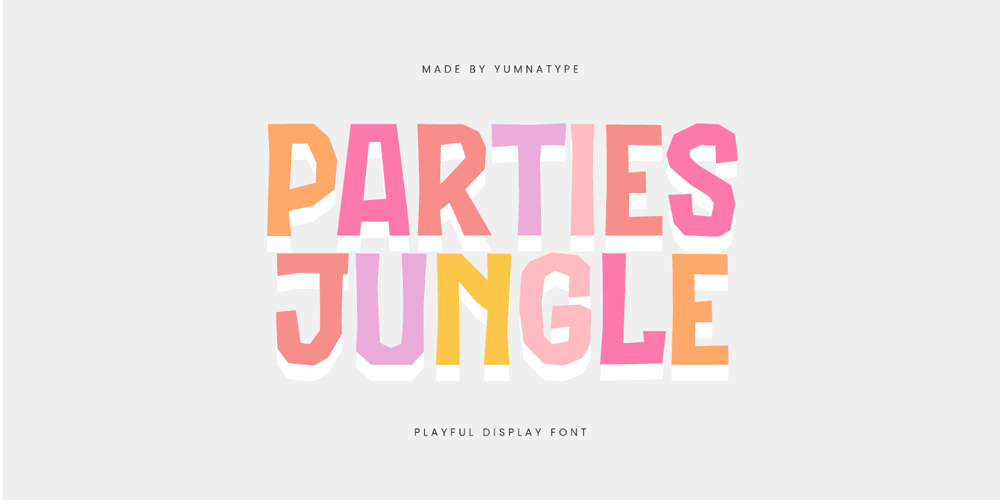
Parties Jungle
Parties Jungle font
Parties Jungle Font Family was designed by Donis Miftahudin and published by Yumna Type. Parties Jungle contains 1 styles and family package options. Parties Jungle is a vibrant and dynamic display font made in uppercases designed to bring a playful spirit to your projects. The playful style of Parties Jungle is evident in its energetic and whimsical letterforms. The multi-faceted outline of Parties Jungle gives the font a distinctive and lively appearance. This design creates a sense of movement and dimension, ensuring that your text stands out with a visually engaging and dynamic look. The outline adds a layer of complexity and intrigue, making your designs more captivating. In addition, enjoy the features here.Features: Alternates Ligatures Multilingual Supports PUA Encoded Numerals and Punctuations Parties Jungle fits in headlines, logos, posters, flyers, branding materials, print media, editorial layouts, and many more designs. Find out more ways to use this font by taking a look at the font preview.Thanks for purchasing our fonts. Hopefully, you have a great time using our font. Feel free to contact us anytime for further information or when you have trouble with the font. Thanks a lot and happy designing.